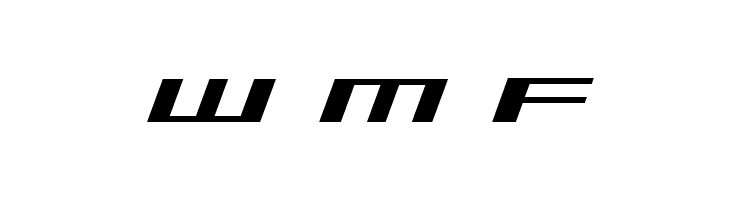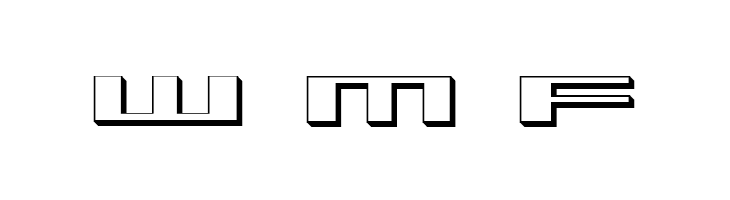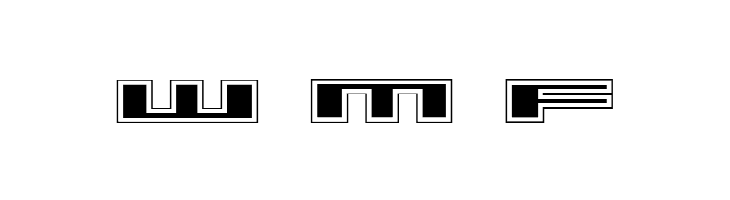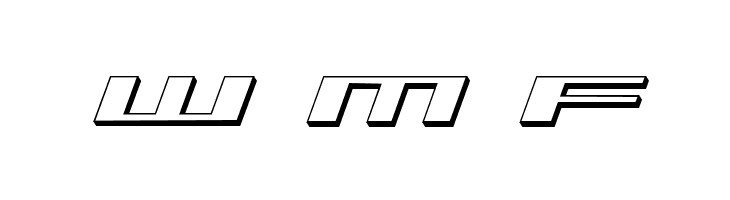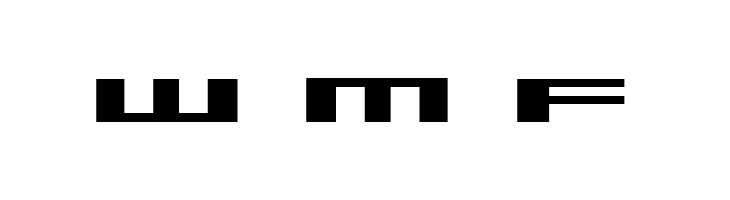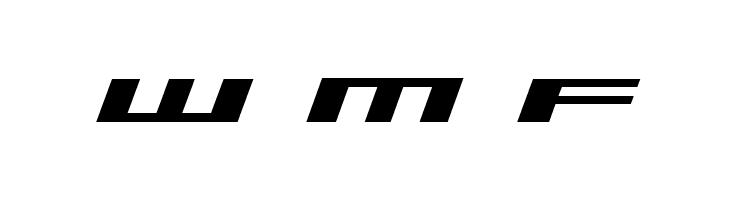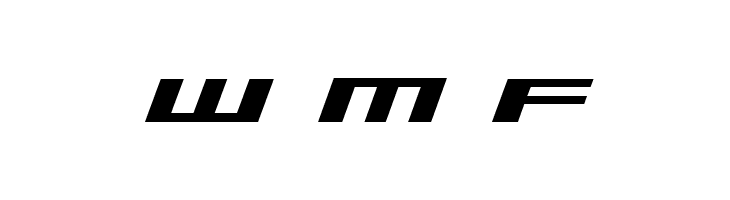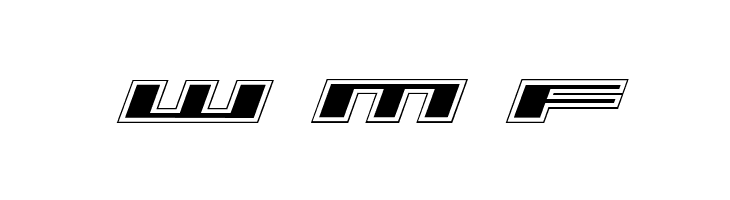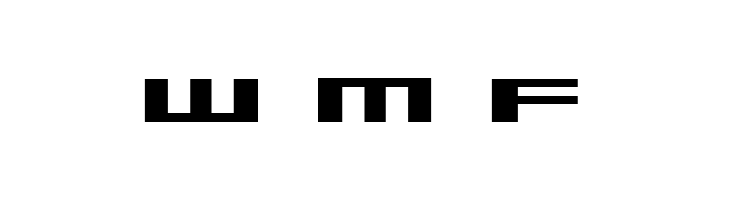
• Trireme 3D
A bold, geometric font with a 3D effect, ideal for modern and dynamic designs.
• Trireme 3D Italic
A dynamic, 3D italic font with a futuristic and geometric design.
• Trireme Academy
A bold, futuristic font with geometric and three-dimensional elements.
• Trireme Academy Italic
A futuristic, italicized font with bold, angular letterforms.
• Trireme Bold
A bold, geometric font with a futuristic and modern aesthetic.
• Trireme Bold Italic
A bold, italicized font with a futuristic, angular design.
• Trireme Condensed
A bold, geometric font with a futuristic, digital aesthetic and condensed width.
• Trireme Condensed Bold
A bold, condensed font with a modern, geometric style.
• Trireme Condensed Bold Italic
A bold, italic, and condensed font with a modern, angular design.
• Trireme Condensed Italic
A futuristic, angular, and italic font with a condensed form and high contrast.